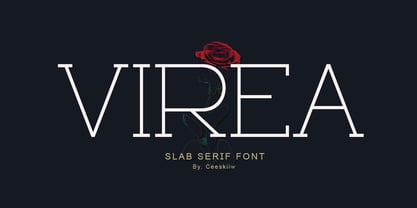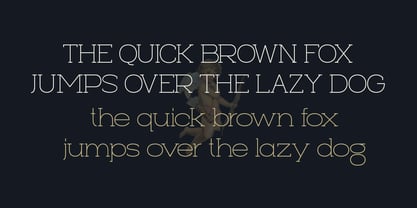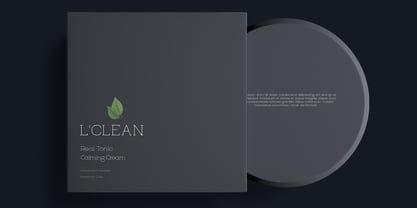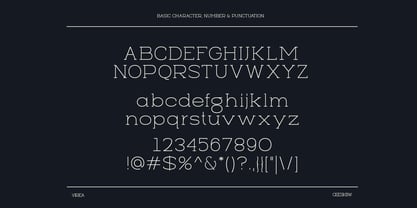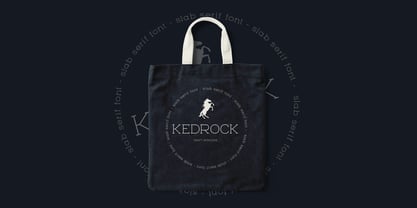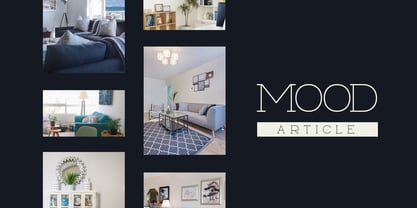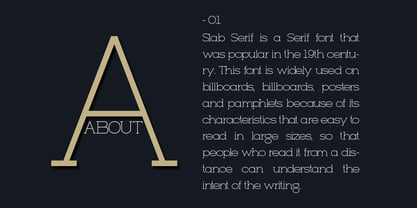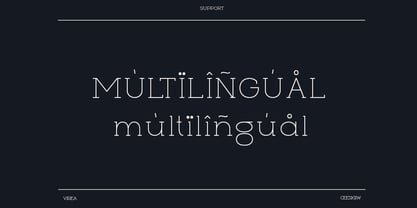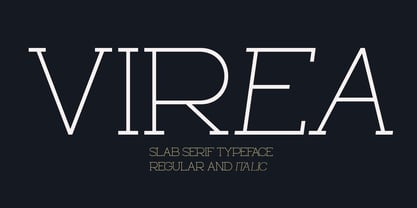
Virea
by Ceeskiiw
The Virea Font Family was designed by Cees Kiiw and published by Ceeskiiw. Virea contains 2 styles and family package options. More about this family
Virea is An ultra-light modern serif with delicate hairline strokes, elegant, and a luxurious editorial aesthetic ideal for fashion, beauty, and premium branding projects.
This font appears to be a thin, high-contrast modern serif typeface with strong Didone-inspired characteristics. It combines elegant fashion-editorial styling with a geometric, minimalist construction.
Designers: Cees Kiiw
Foundry: Ceeskiiw